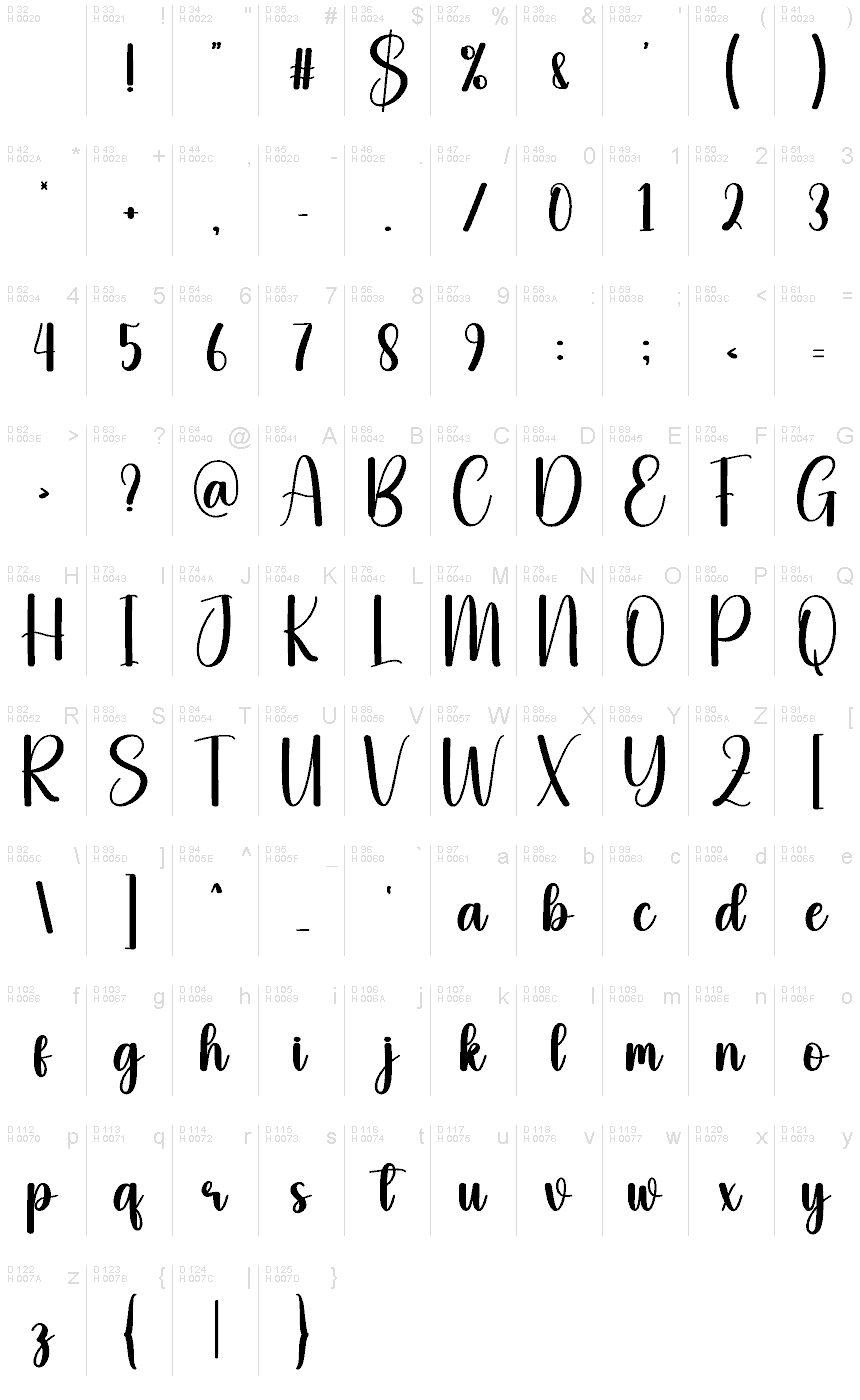
Briefly
Briefly font designed by Scratchones is a free handwritten font that captures an elegant and flowing tone. Although the style is expressive, the letters strike balance through a modern uniform look that excludes chaotic layouts. This highly legible font presents its soft curves and rounded corners with casual elegance suitable for various projects.
Branding designs, signage, packaging labels, apparel prints, invitation designs are some of its many uses. Briefly will also naturally fit in poster titles, social media marketing layouts, website headers and in other similar applications. If achieving a warm tone isn’t your midterm goal now it can be ideal for future plans!